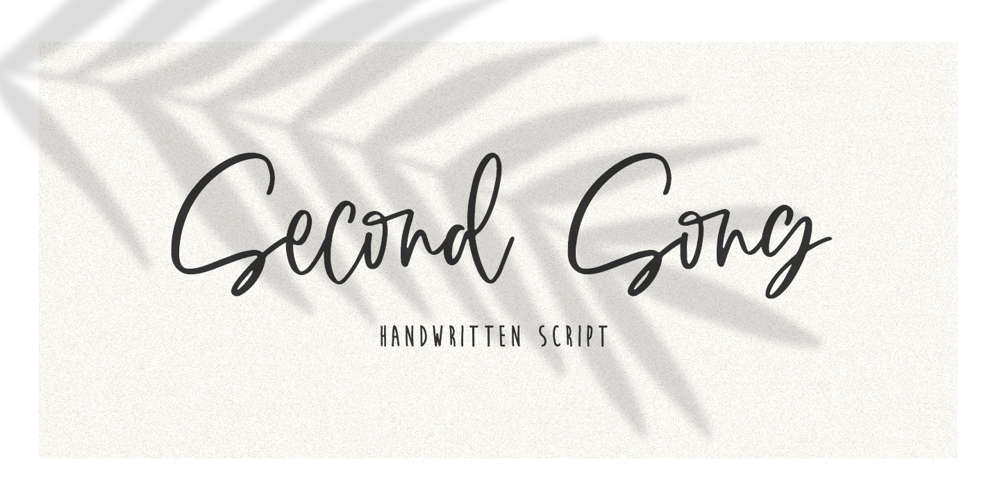
Second Song
Second Song font
Second Song Font Family was designed by Dmitrii Chirkov and published by Supfonts. Second Song contains 1 styles and family package options. Here’s my new experiment, Second Song. This font breaks the boundaries even more. Now the inscription looks as authentic as possible.Includes: Regular Script Uppercase and lowercase Numbers and punctuation Foreign language support Ligatures